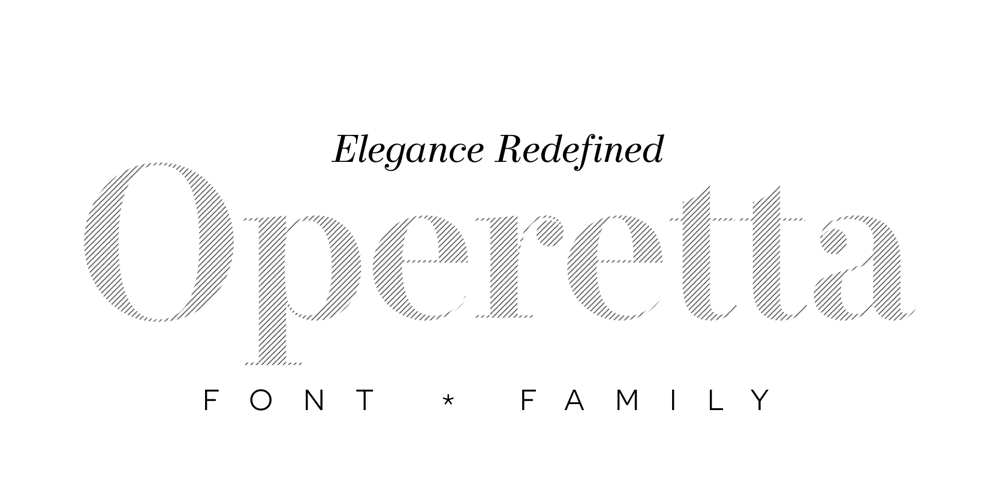
Operetta
Operetta font
Operetta Font Family was designed by Jan Tonellato and published by Synthview. Operetta contains 80 styles and family package options. Operetta is a neo-didone display font family inspired on Bodoni, Didot (early 18th century) and Walbaum (19th century). Despite of this heritage, Operetta’s design meets contemporary taste and typesetting needs. With five optical sizes, masterfully navigate between contrast and legibility across various dimensions. The range of eight weights, from the weightless Extralight to the robust Extrabold, let you set your tone: from delicate to exuberant.Operetta’s generous character set and opentype features let you meet the most demanding layout needs. And don’t forget swashes, arrows and other extra glyphs, seldom included in a didonesque font. The number displayed in the font family name signifies the recommended minimal print size in points. In web design you should double the minimum value for a retina screen, multiply by 4 for a 72dpi screen.Of course its rendering depends on the printing support, screen resolution etc. Therefore, take it as a suggestion or a starting point; make your own trials. And now, the pièce de résistance: Operetta unveils its italics, adding yet another layer of allure and sophistication.